Eskapade’s full-on contrast
From digital and motion to murals and branding, Pennybridge is a creative studio with panache, matching how they’ve chosen Eskapade as an eye-catching contrast to the rest of their branding text.
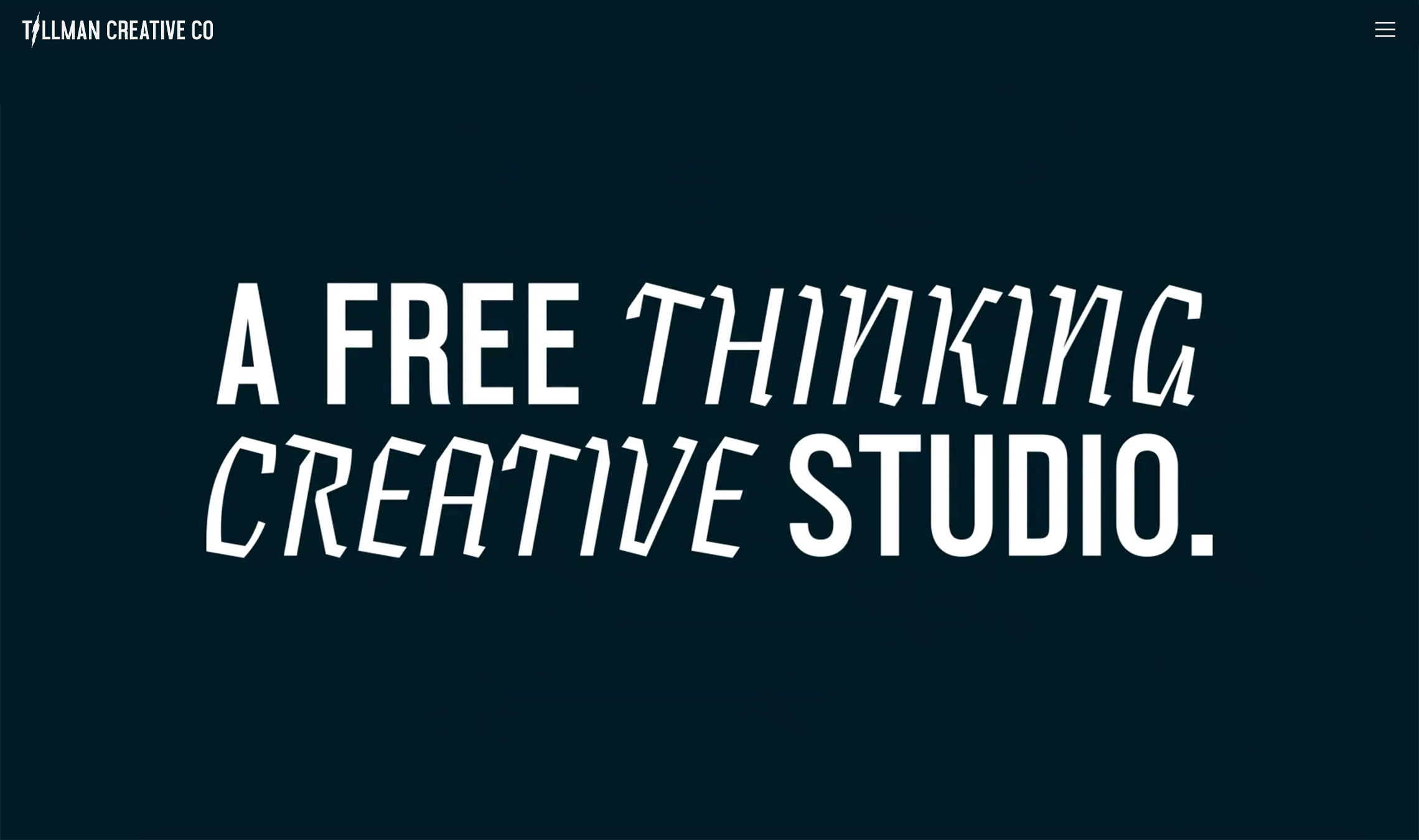
Pennybridge is a creative studio based in Queensland, Australia, focusing on unconventional ways of producing great work. Trek, Yeti, Jameson Whiskey, Oakley, Foot Locker, and many other brands have utilized their specialisations. Through their full-on system — going from chaos to clarity — they are able to create customer connections on cue for corporations and causes. (Too many C words, or just enough?)
While their output has been judged as top-of-class and their award roster grows by the month, to them it’s more about the outcome with how the customer and client can connect through trust. As a signal of their perspective on branding, Pennybridge chose Eskapade Fraktur’s unique and aggressive look to set it apart from other bland agencies. Eskapade creates new common ground between a nimble oldstyle serif font and an experimental Fraktur, and it contrasts well against the standard pill-shaped all-caps sans chosen for headings.
High contrast for high achievements — this is Pennybridge’s goal for both themselves and their clients.